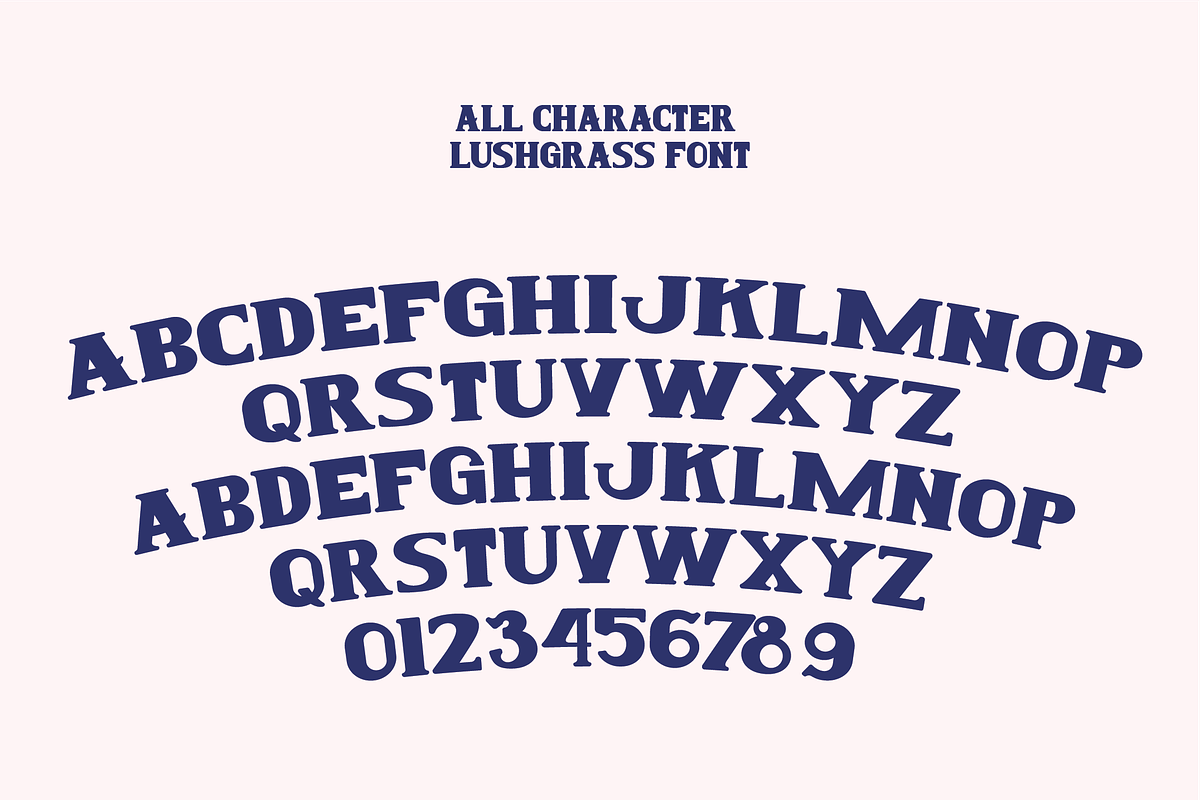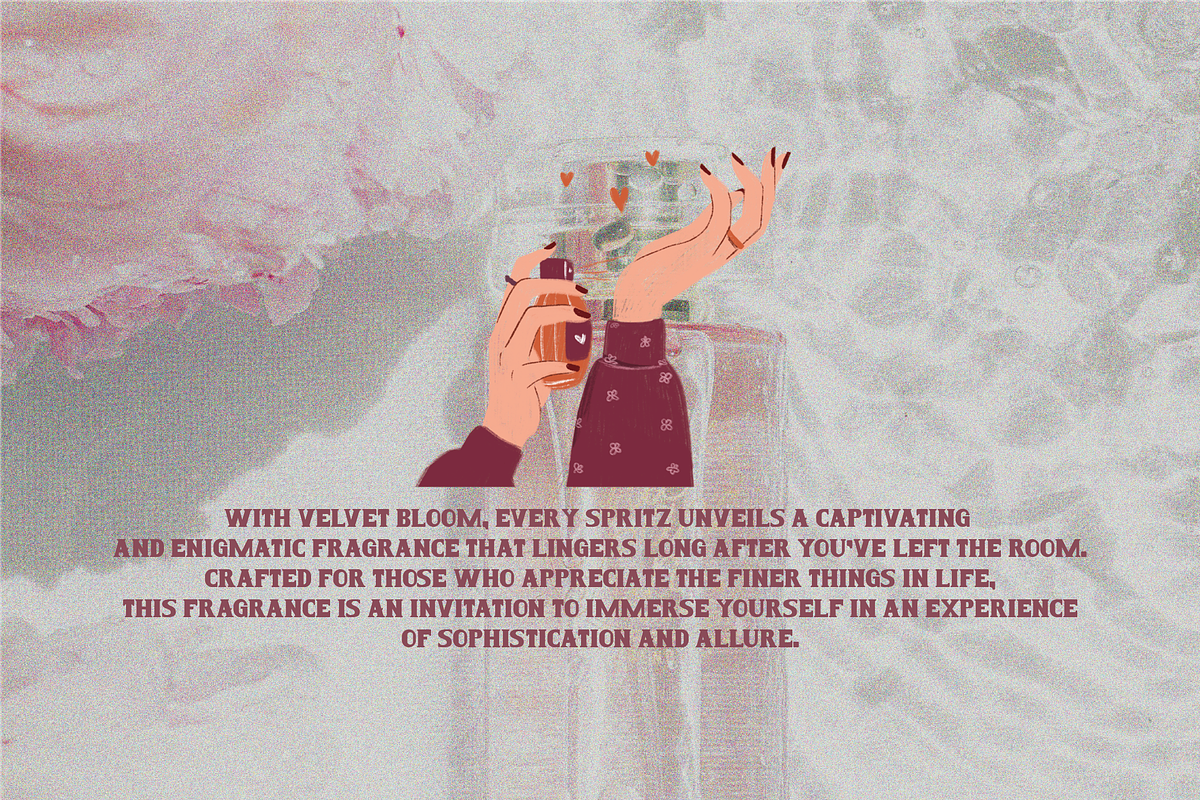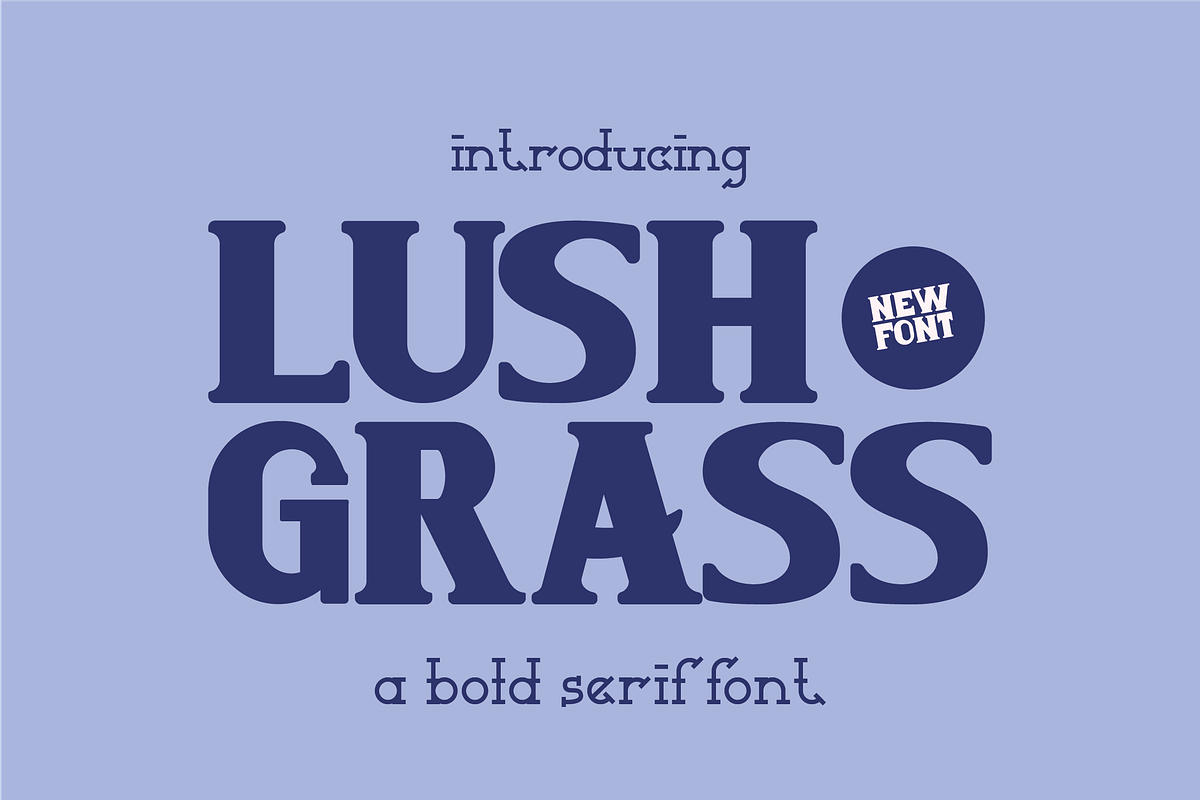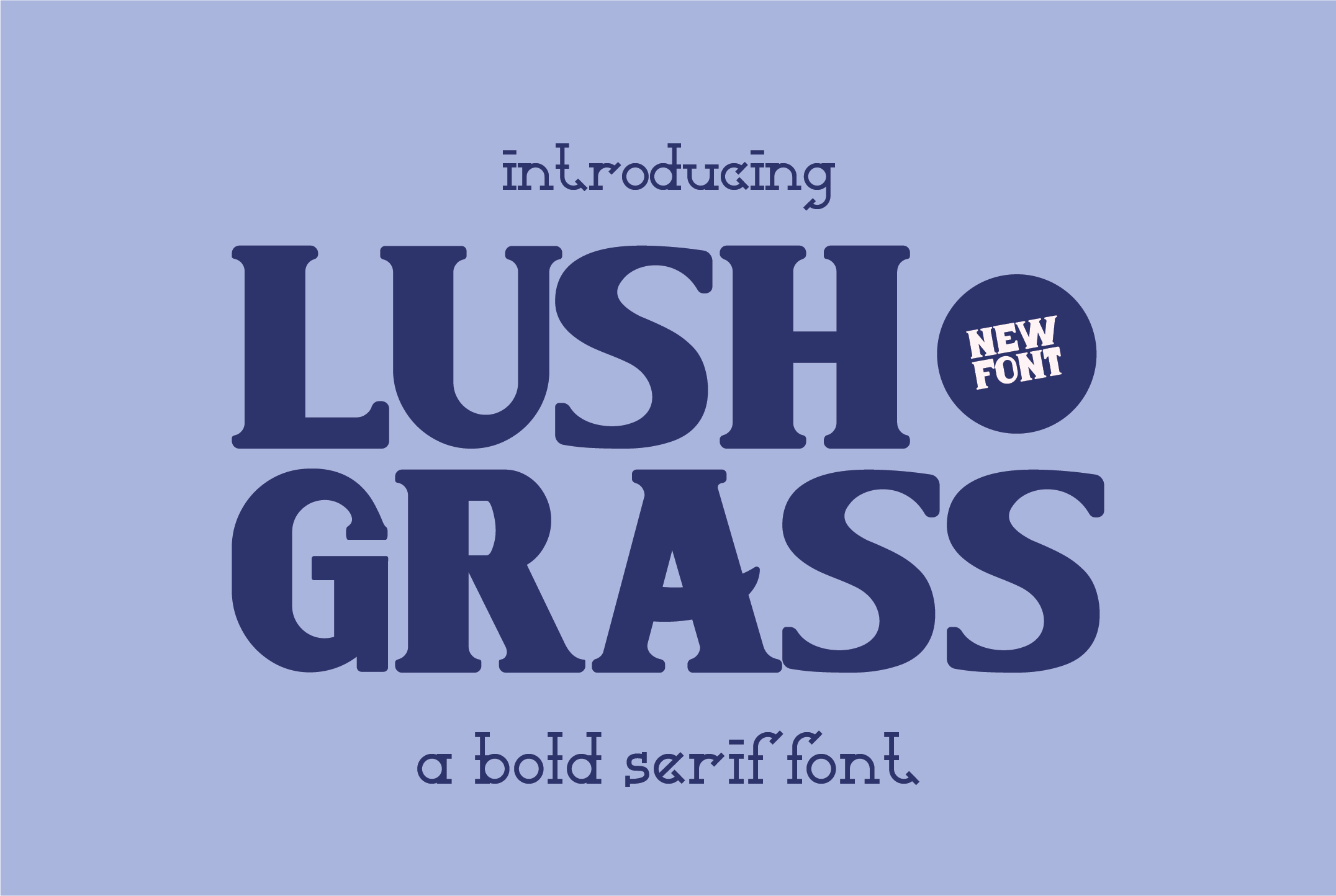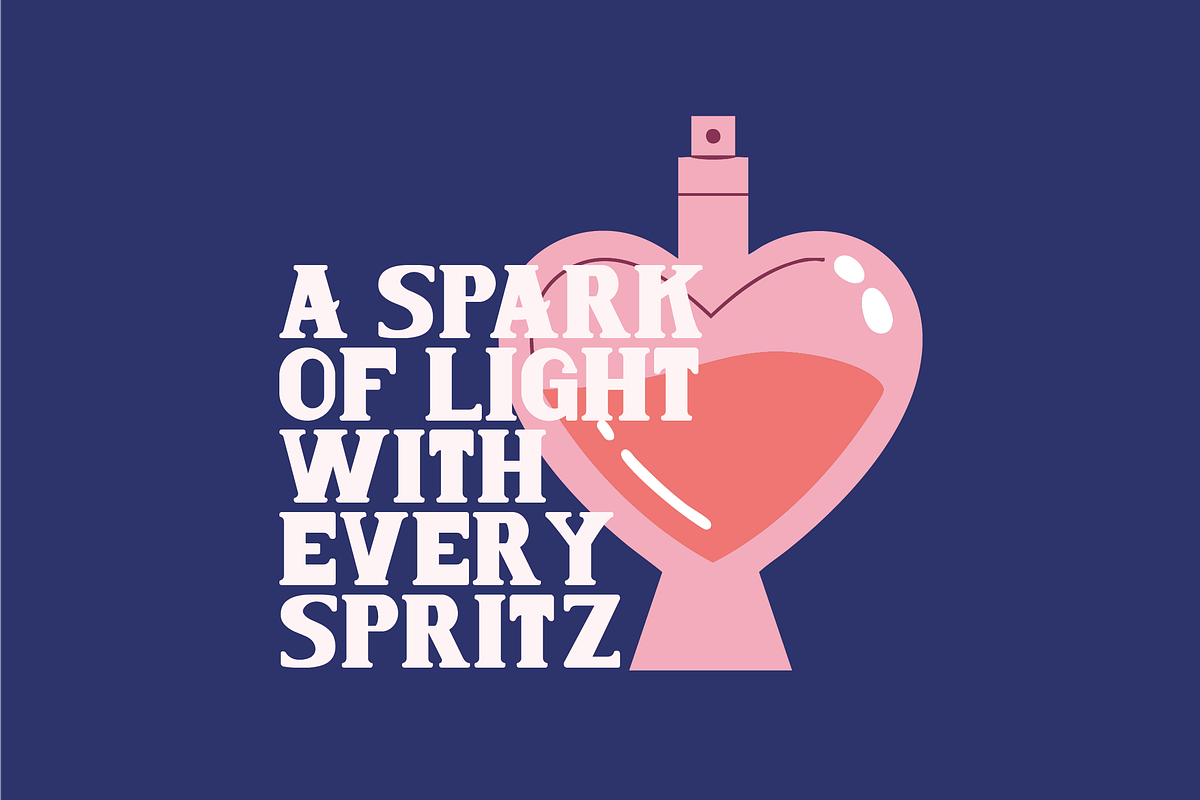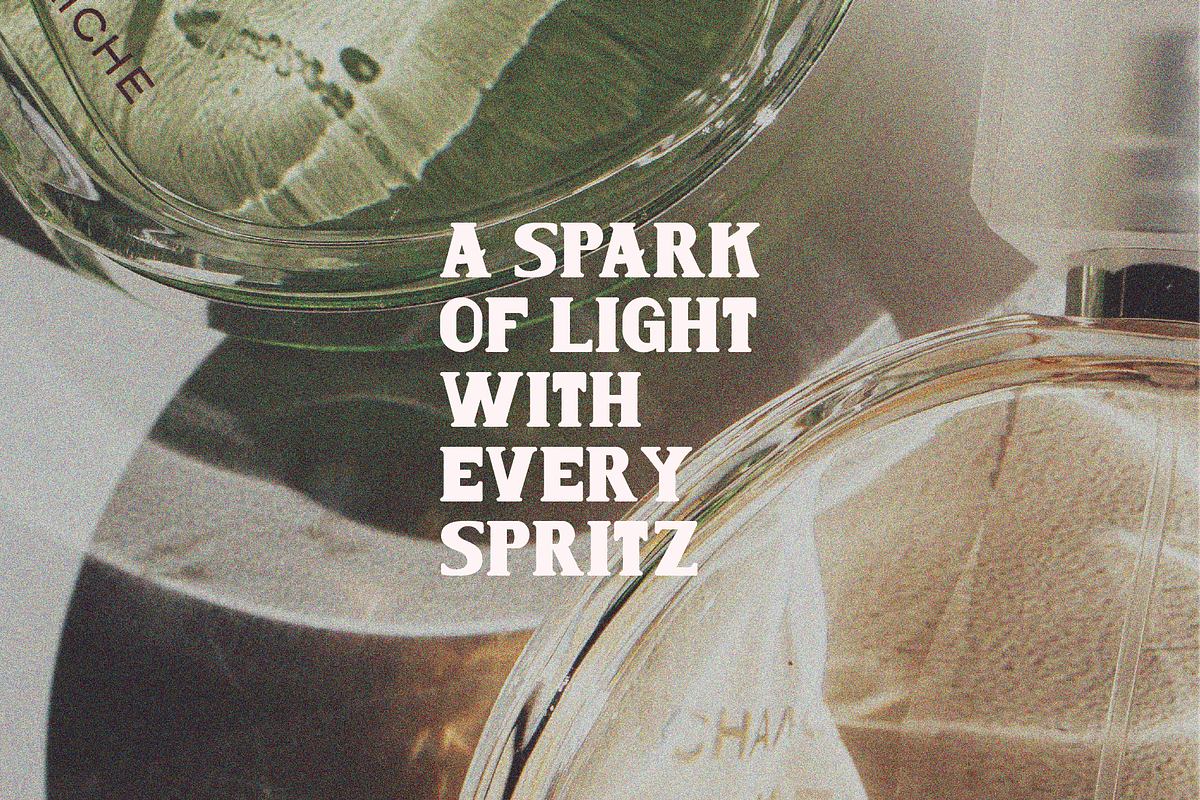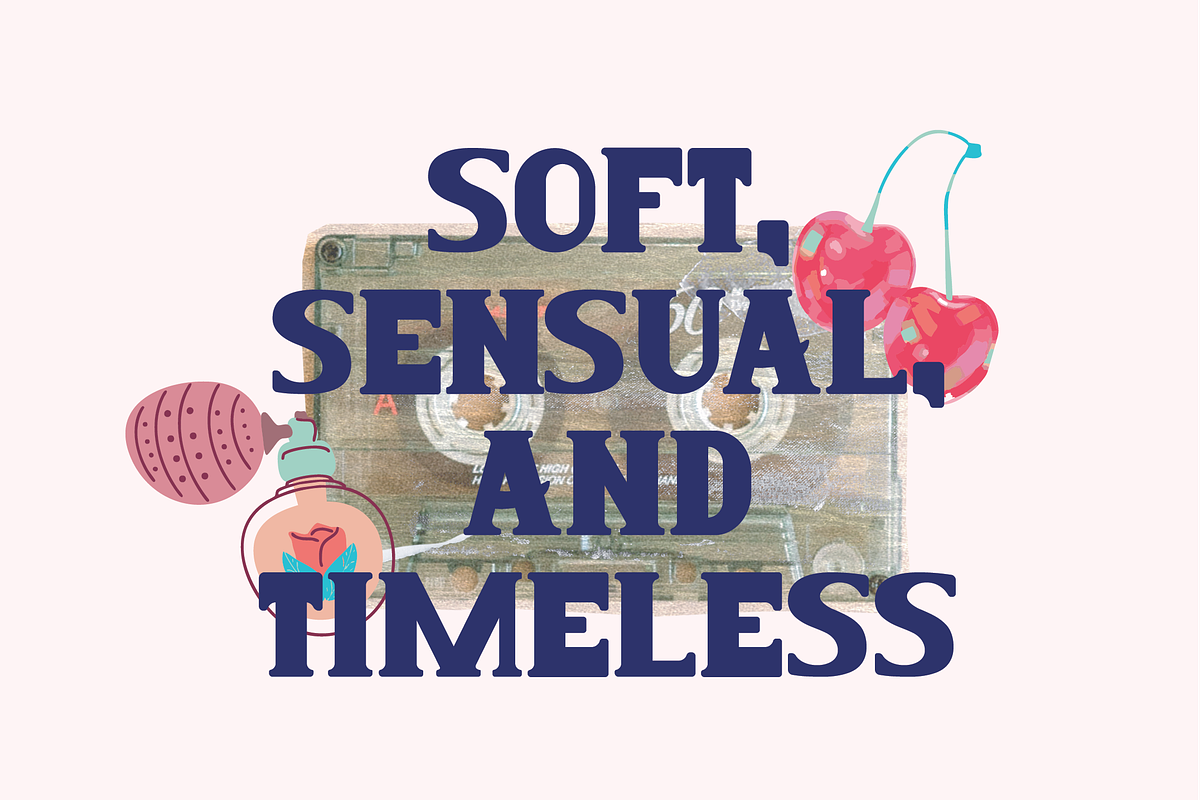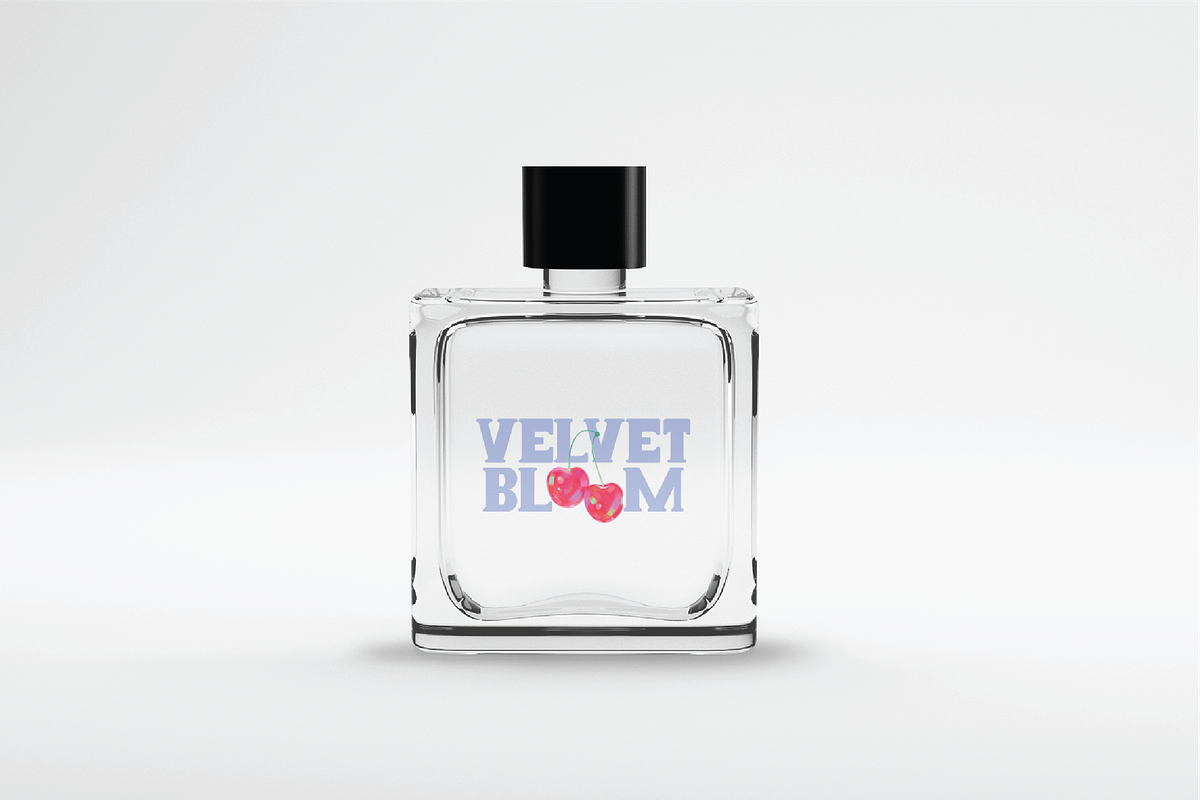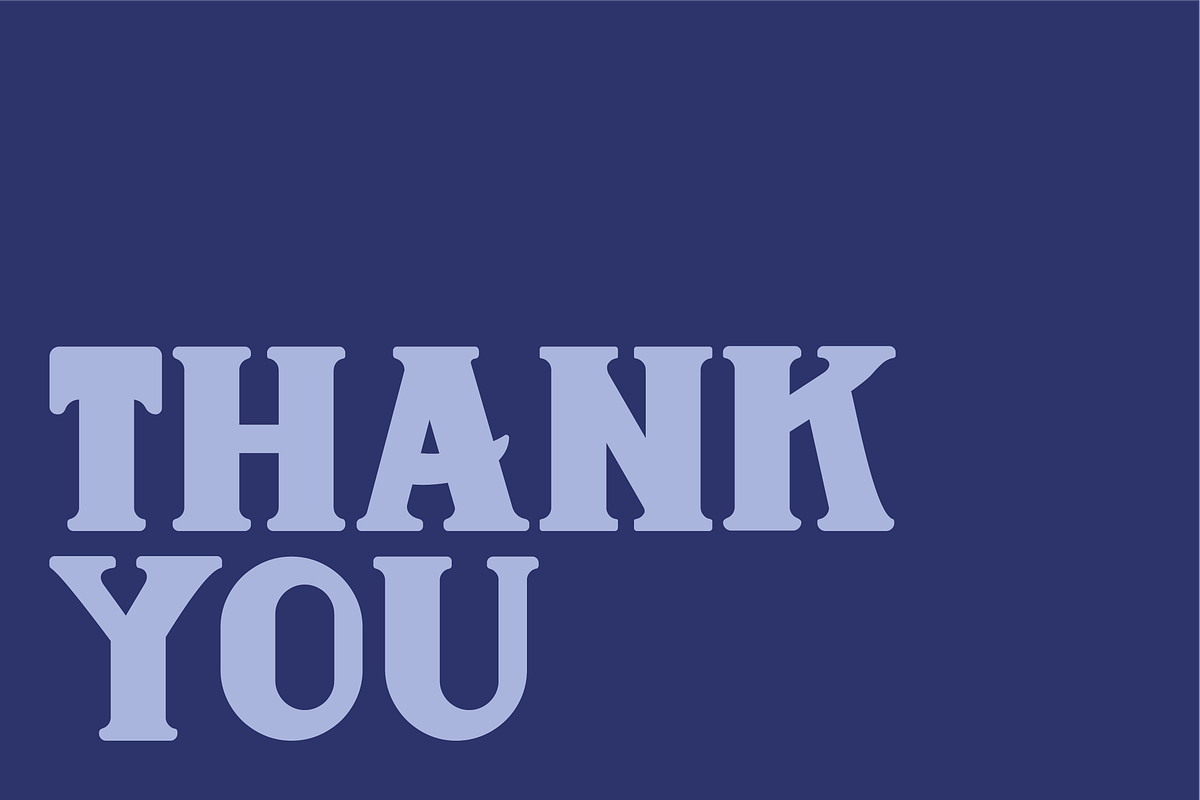
Lushgrass - Bold Serif Font
Lushgrass The font in this design is bold, geometric, and playful. It has strong, thick letterforms with a retro feel, giving it a vintage yet modern look.
- Numbers, marks and symbols